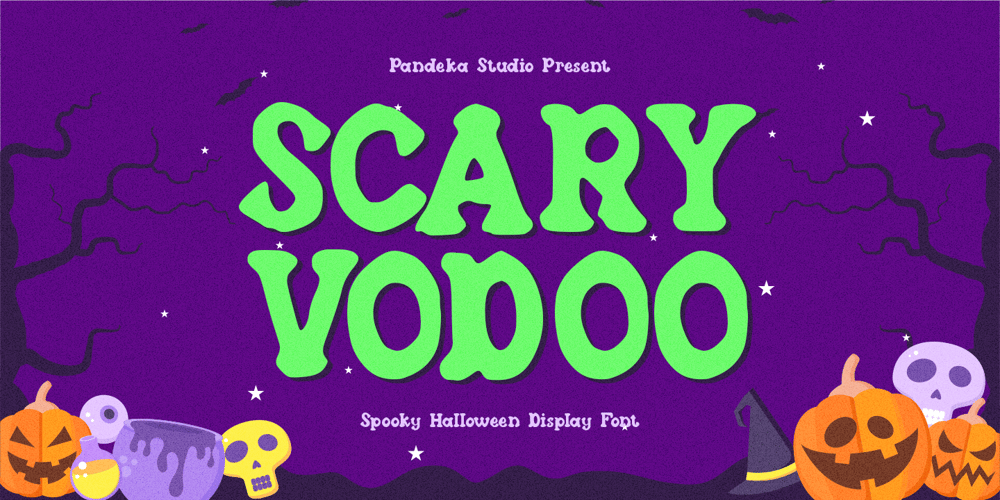
Scary Vodoo Font Family was designed by Sagara Nararya and published by Pandeka Studio. Scary Vodoo contains 1 styles and family package options. Scary Vodoo – Haunted Halloween Display Font 🎃👻Scary Vodoo is a spooky display typeface with eerie, dripping details, perfect for horror posters, Halloween invitations, haunted house flyers, creepy branding, eerie packaging, and themed merchandise. Its haunted style and unique lettering add the perfect touch of chilling aesthetics to any design. 🕷️🔮What’s Included: Main Files formats 1 Style: Regular Full Character Set: Uppercase, lowercase, numbers, symbols, and punctuation Easy to Use: Works on both PC & Mac Compatible with Adobe Illustrator, Photoshop, Microsoft Word, Canva, and more PUA Encoded: Fully accessible without additional software Halloween Display Font Spooky Typography Creepy Lettering Eerie Aesthetic Horror Design Haunted Style Unique TypefaceThank you and happy designing!Pandeka Studio